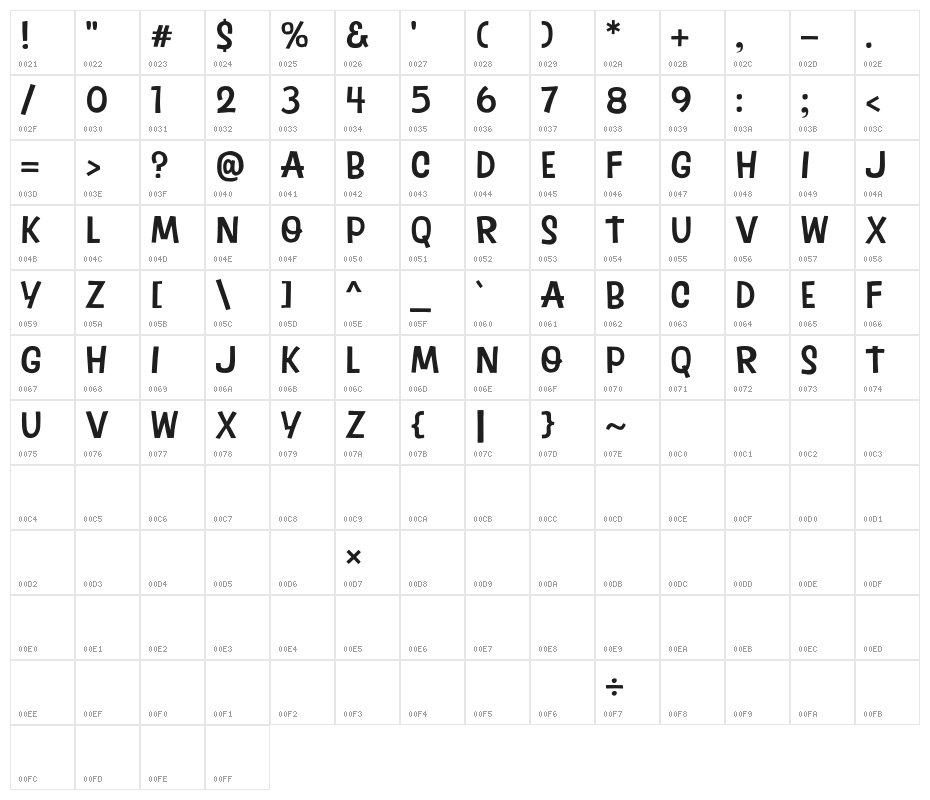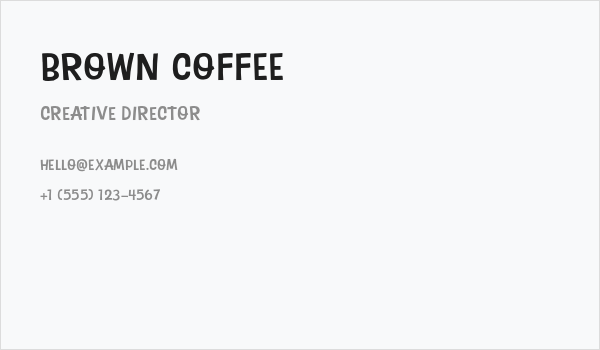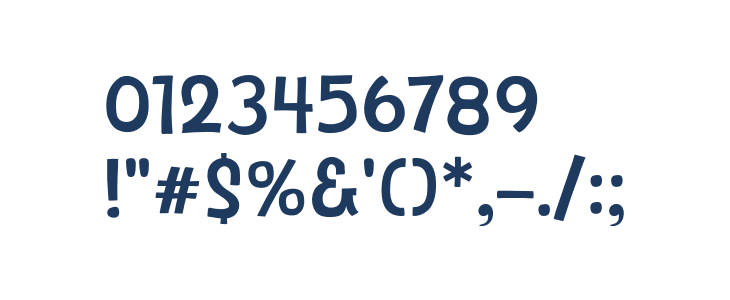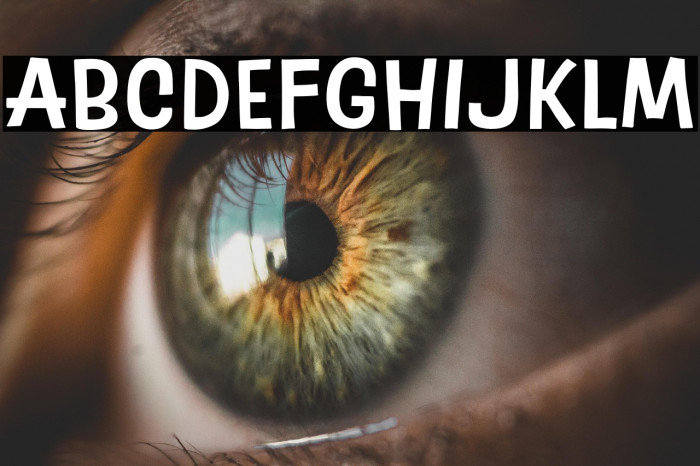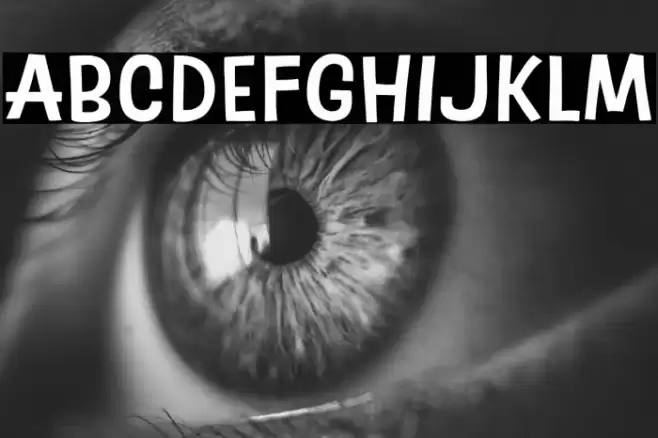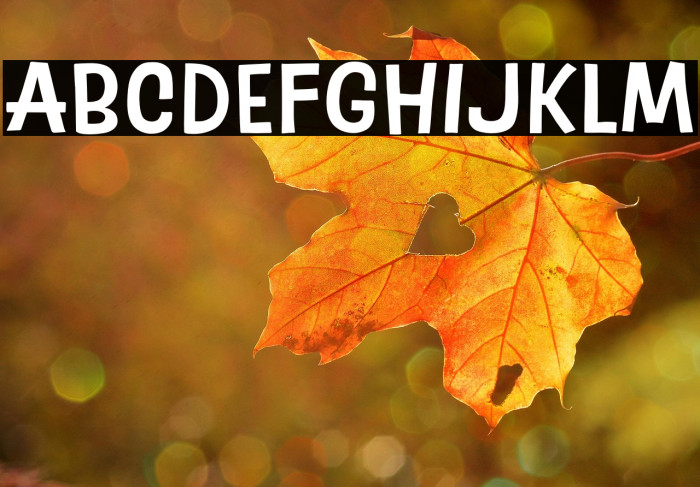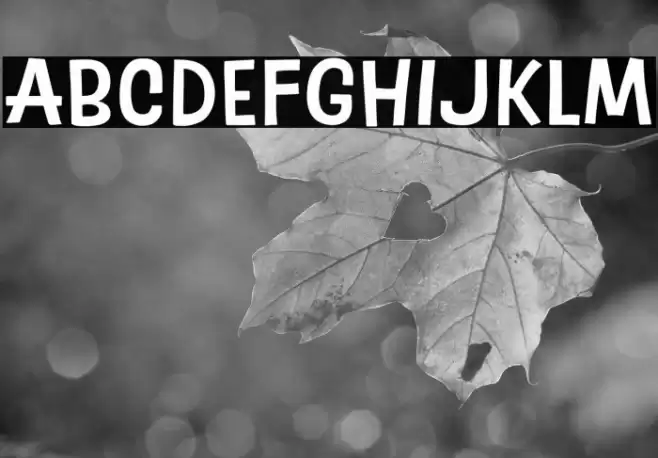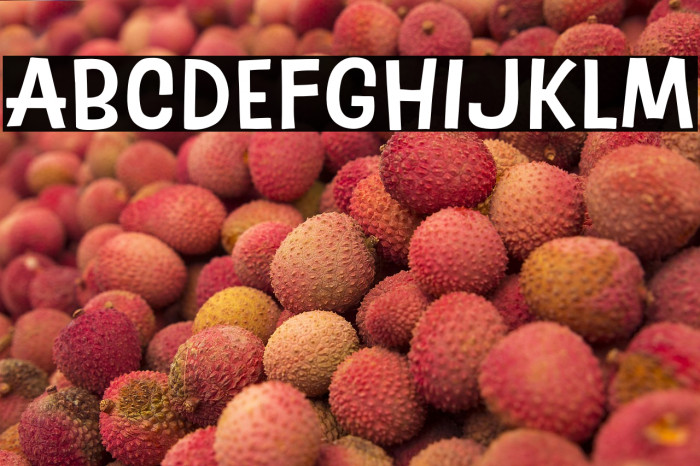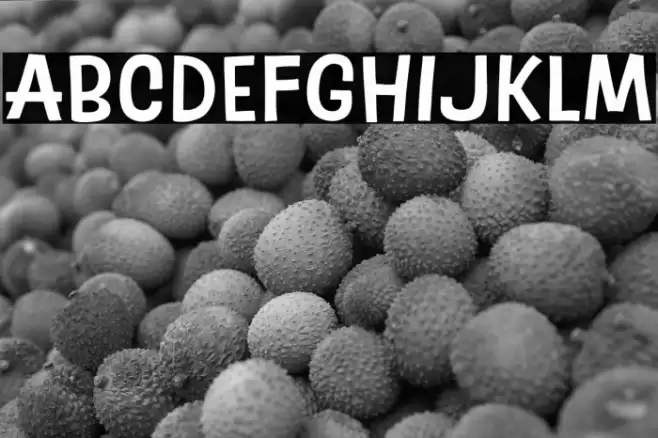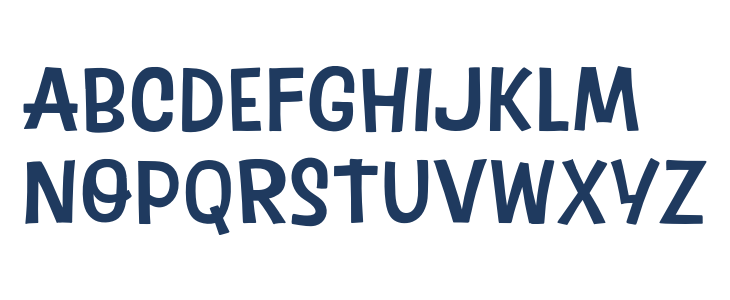
Brown Coffee Font
Brown Coffee Description
This font features a playful and bold style with a slightly irregular baseline, giving it a hand-drawn appearance. The characters are thick and rounded, providing a friendly and approachable feel. The uppercase letters are consistent in height, while the lowercase letters maintain a similar width, ensuring readability. Numbers and special characters are designed to match the overall style, with curves and angles that complement the alphabet. This font's unique character makes it suitable for projects that require a touch of whimsy and creativity.
| Proposed Projects | Ideal for children's books, playful branding, casual invitations, and creative posters. |